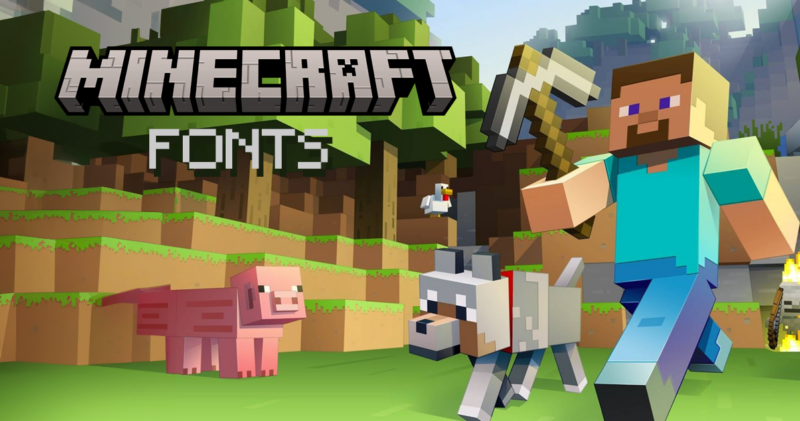
What’s the Minecraft Font + 10 Alternatives to Download in 2026
The Minecraft font is so memorable and perfect for the pixelated, boxy Minecraft brand everyone loves.
Minecraft is more than just a game—it’s a cultural phenomenon. With over 200 million copies sold and a whopping 140 million monthly active users, it’s safe to say that this game has left an indelible mark on the gaming landscape. So what’s the best Minecraft Font to use in your fan art and other projects?
The Official Minecraft Font: A Pixelated Classic
There’s a lot of debate on the Internet as to what the official Minecraft font really is.
The Minecraft Wiki says the official Minecraft font is Minecraft Seven. It seems pretty likely. What do you think?
Minecraft 7 Official Font
Others claim the font is Minecraft Regular. Is this one closer? or more off?
But here’s where it gets interesting: the default font isn’t just about looks. Its simplicity and clarity make it highly readable, even on lower-resolution displays. This is crucial in a game where quick communication can mean the difference between life and death (looking at you, Creepers).
And if you’re looking for the Minecraft font they use in their logo, it’s a bit different. Not as pixelated, this font is blocky with some cracking. The absolute best match I’ve found is Minecrafter Alt by PurePixel.
Our Favorite Minecraft Fonts (Pixelated Style)
Now, don’t get me wrong—the default font is great. But sometimes, you want to shake things up a bit. Luckily, the Minecraft community has got your back with a plethora of alternative pixel fonts. Let’s check out some fan favorites:
Craft Fone Font
Craft Fone Font is like the digital equivalent of building blocks. This bold and authentic display font brings that chunky, pixelated Minecraft vibe to your designs. It’s perfect for crafting eye-catching logos, t-shirt designs, or esports branding that’ll make your projects pop like a creeper explosion. Available in both OTF and TTF formats, Craft Fone is ready to mine some serious attention in your designs. Whether you’re creating game-inspired graphics or just want to add a touch of blocky nostalgia to your project, this font is your diamond pickaxe for standout typography.
Mine Fone Font
Mine Fone Font is like striking typography gold in the pixelated caves of design. This bold, blocky typeface captures that unmistakable voxel vibe that Minecraft fans know and love. It’s your go-to font for everything from game-themed party invites to esports team logos. With its authentic pixelated look, Mine Fone lets you build typography as epic as your in-game creations. Available in both OTF and TTF formats, this font gives you the flexibility to craft pixel-perfect designs across various platforms. Time to level up your typography game and show the world you know your blocks!
Go Pixel
Go Pixel Font
Go Pixel is like a time machine for your typography, teleporting you back to the golden age of 8-bit gaming. This uppercase display font nails that retro pixel art vibe with its consistent proportions and quirky, uneven borders. It’s got that low-contrast charm that’ll make your designs pop faster than you can say “Game Over.” Perfect for headlines, logos, or anywhere you want to inject some nostalgic fun, Go Pixel is your cheat code for creating eye-catching, game-inspired designs. And with its multilingual support and PUA encoding, you can spread the pixel love across languages and platforms. Game on, designers!
Arcade Pixel
Arcade Pixel Font
Arcade Pixel is like finding a secret level in the world of fonts. This retro pixel style typeface takes you straight back to the days of pumping quarters into arcade machines. It’s got that classic game design flair that’s perfect for, well, game designs (duh!), but don’t stop there. This versatile pixel powerhouse can level up movie posters, book covers, and even logos. Available in OTF, TTF, and WOFF formats, Arcade Pixel is ready to play across all your design platforms. So grab your joystick (or mouse) and start creating some high-score worthy designs!
Micro – Pixelate Modern Font
Micro - Pixelate Modern Font
Micro – Pixelate Modern Font is like the cool, hipster cousin of classic pixel fonts. It’s got that retro vibe, but with a modern twist that makes it perfect for the NFT crowd and old-school gaming enthusiasts alike. This font doesn’t just live in the past; it’s ready to rock your pixel-perfect designs in the digital age. Whether you’re crafting the next big thing in blockchain art or just want to add some pixelated pizzazz to your posters, Micro’s got your back. With both uppercase and lowercase characters, it’s versatile enough to handle headlines and body text. Available in OTF, TTF, and WOFF formats, this font is ready to pixel-push your designs to the next level!
Pixel Impact – 8Bit Font
Pixel Impact - 8Bit Font
Pixel Impact is like the love child of classic arcade games and modern design sensibilities. This 8-bit font like Impact packs a punch with its bold, dynamic character that screams “Insert Coin to Play!” It’s perfect for indie game developers looking to capture that retro magic, or graphic designers wanting to add a splash of pixelated charm to their work. With its attention to detail and stylistic flair, Pixel Impact stands out in the digital landscape like a high score on a leaderboard. Whether you’re creating a new indie game, designing a website with a vintage feel, or just want to sprinkle some nostalgia into your designs, this font delivers the goods.